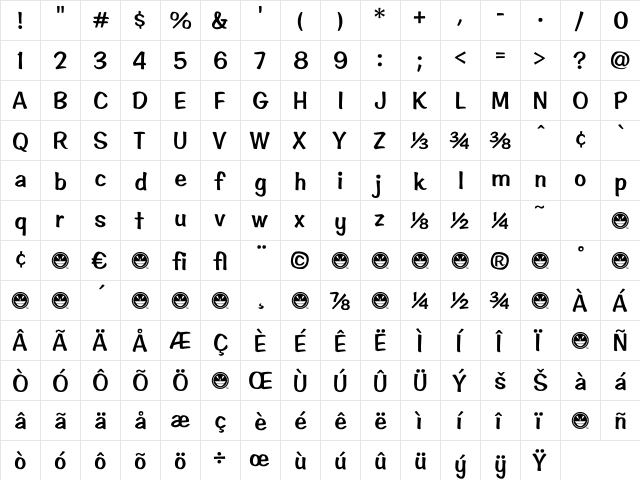
SCRIPT1 Scrapin' Cazual Normal
Design Context for SCRIPT1 Scrapin' Cazual Typeface
SCRIPT1 Scrapin' Cazual flows with the natural rhythm of handwritten lettering, making it ideal for designs that call for warmth and personal expression.
Font Pairing: Combine SCRIPT1 Scrapin' Cazual with a simple geometric sans for maximum contrast — the tension between flowing curves and clean structure is a classic typographic pairing.
Pro Tip: Use SCRIPT1 Scrapin' Cazual for short runs of text — names, titles, or taglines. Extended body copy in script faces tires the eye quickly.